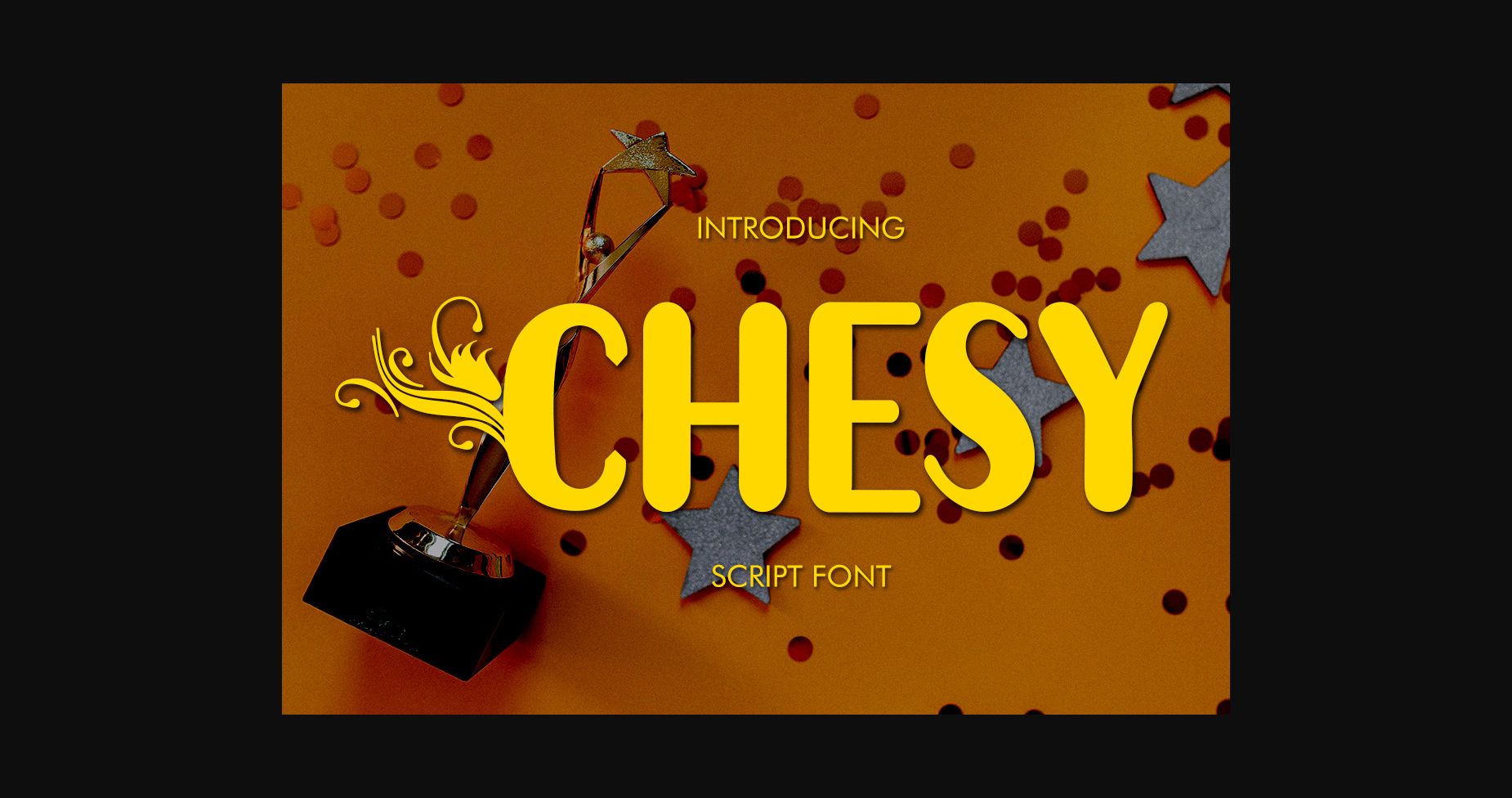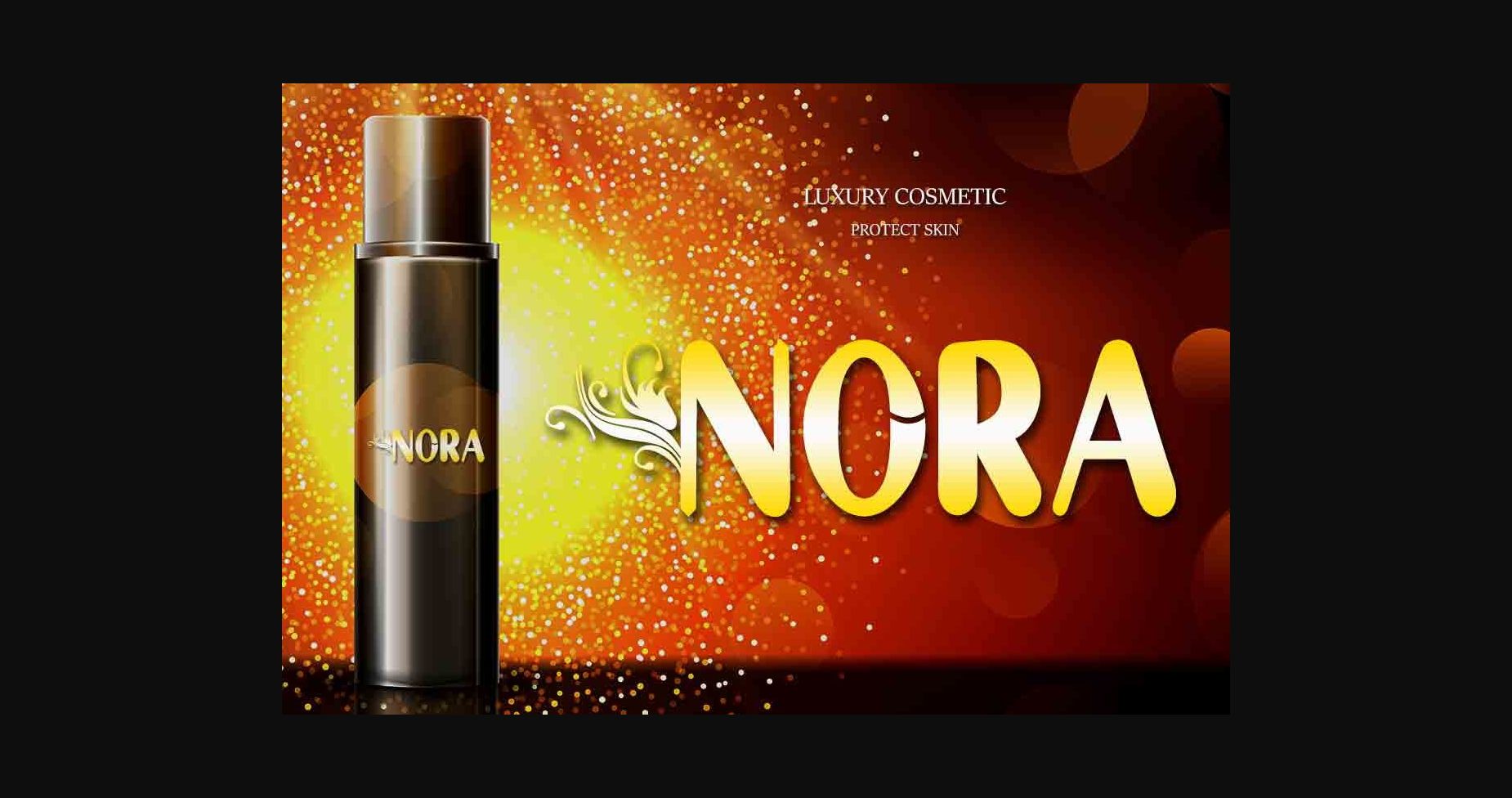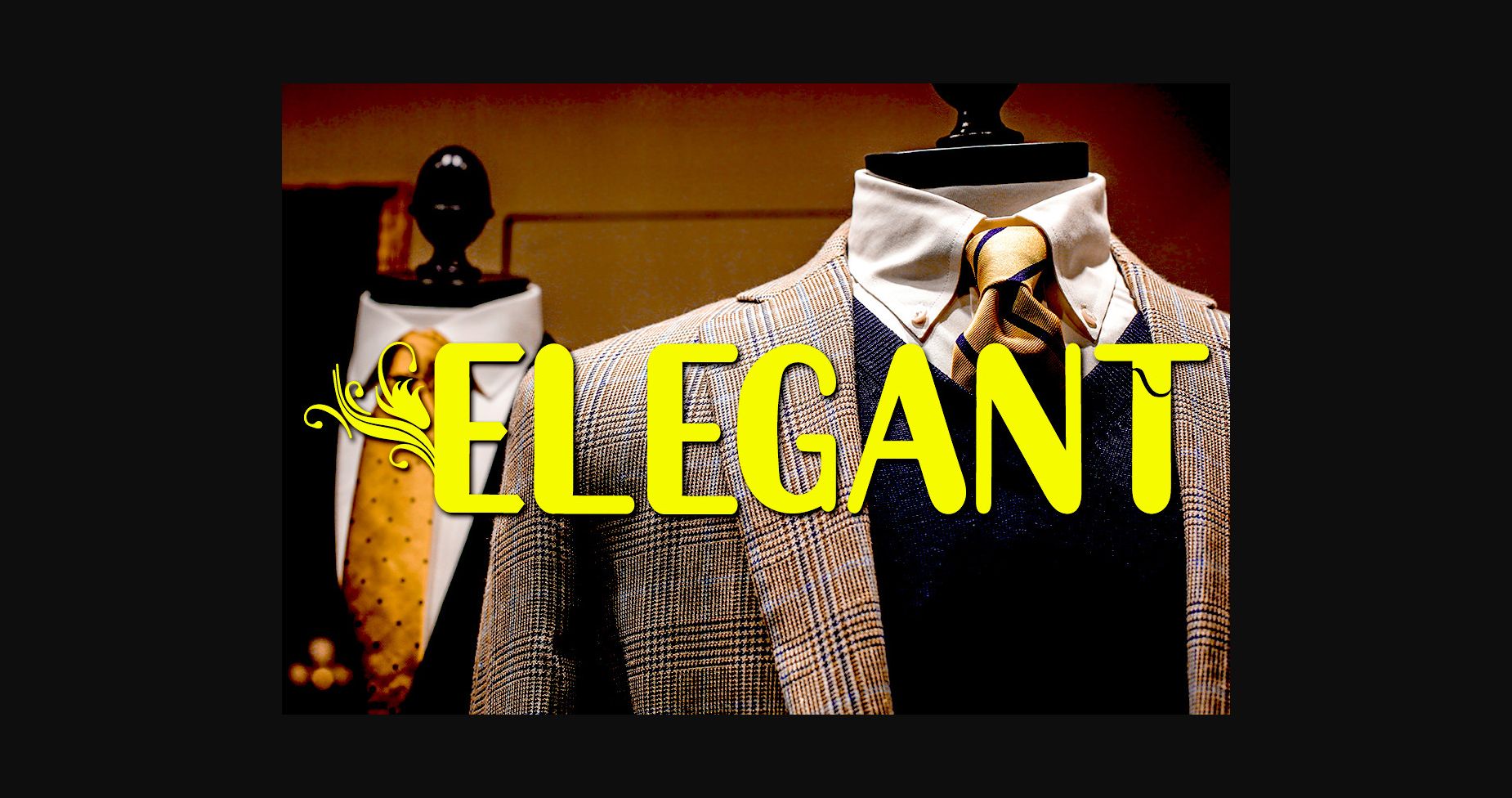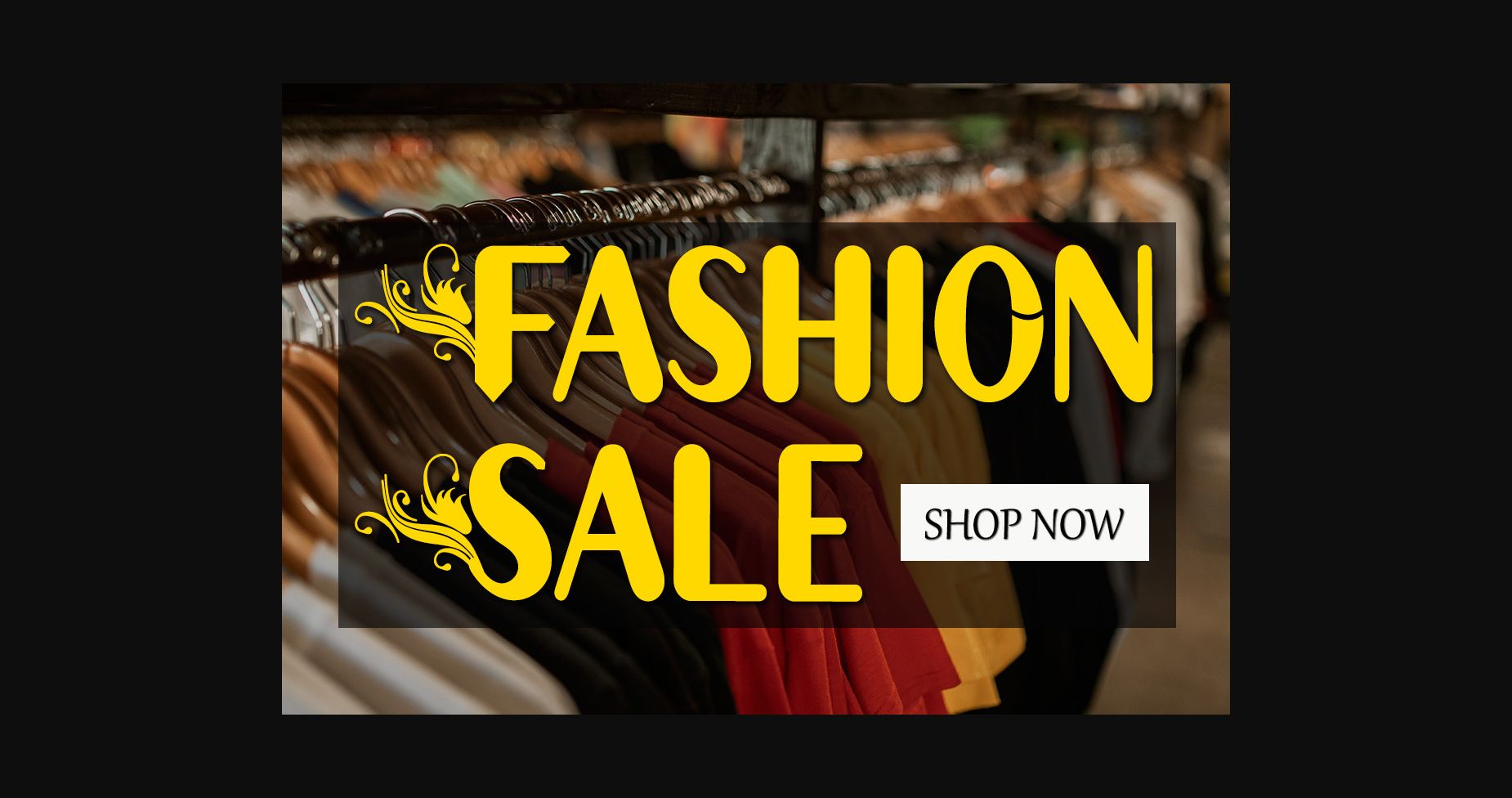
About Chesy Font
Chesy is a charming and whimsical sans serif font (with a decorative uppercase) perfect for adding fun to any project. Its playful and informal style features rounded edges and irregular letterforms, giving it a handcrafted feel. With its laid-back vibe and easy readability, Chesy is ideal for designs that require a friendly and approachable tone.